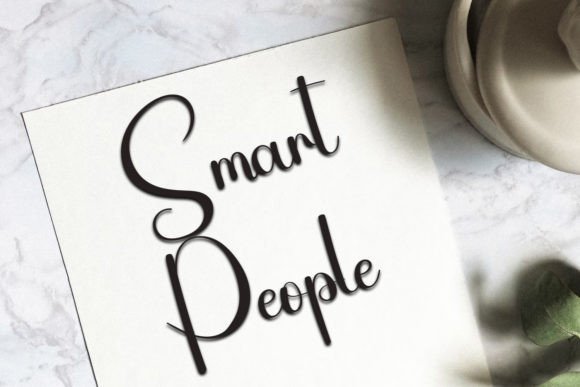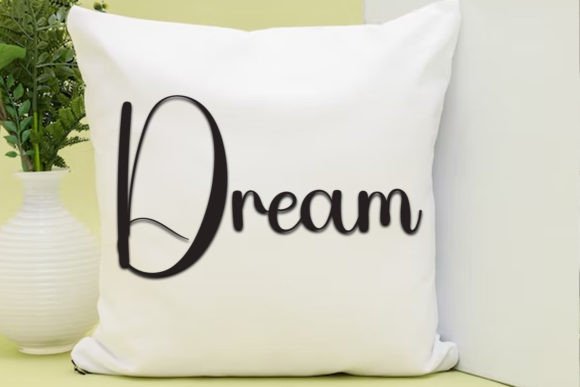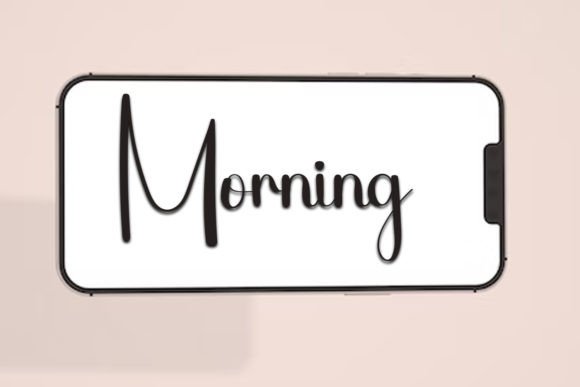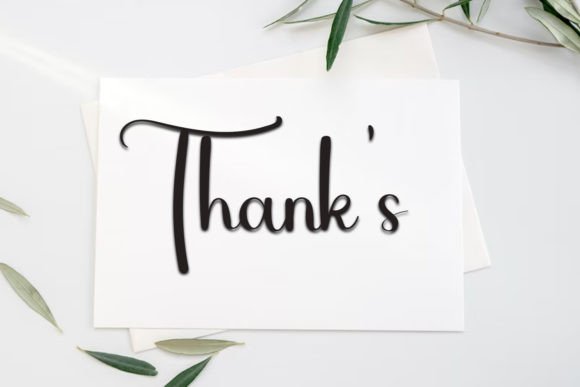
The Elegance of Greetings Font: Elevating Designs with Modern Simplicity
In the realm of typography, few fonts manage to strike a balance between modern simplicity and timeless elegance. Greetings font, however, stands out as a beacon of sophistication, offering designers and crafters an exceptional tool to infuse their projects with a personal touch. This script font is not just a typeface; it’s an expression of grace and style that seamlessly blends contemporary flair with classic undertones.
The Essence of Greetings Font
Greetings font is characterized by its fluid lines and effortless strokes, which together create a sense of movement and elegance. This fluidity is not just aesthetically pleasing but also highly versatile, making Greetings suitable for a wide range of design applications. From sophisticated branding and logos to editorial designs that demand a touch of refinement, Greetings font proves to be an invaluable asset.
Why Choose Greetings Font?
For designers and crafters looking to elevate their work, Greetings font offers several compelling reasons:
- Modern Simplicity: In an era where design trends are constantly evolving, Greetings font embodies the perfect blend of modern simplicity and elegance. Its clean lines and uncomplicated structure make it instantly recognizable and versatile.
- Elegance and Sophistication: The font’s inherent grace and style lend an air of sophistication to any design. Whether it’s for a luxury brand, a high-end product, or an editorial piece, Greetings font ensures that the message is conveyed with elegance.
- Versatility: One of the key strengths of Greetings font is its versatility. It can be used across various platforms and design applications, from digital media to print, without losing its impact or appeal.
- Personal Touch: What sets Greetings apart is its ability to add a personal touch to designs. Its unique character ensures that projects stand out, reflecting the personality and ethos of the brand or individual.
Applications of Greetings Font
The applications of Greetings font are vast and varied. Here are a few areas where it truly shines:
- Branding: For brands aiming to establish a sophisticated and modern identity, Greetings font can be a game-changer. It works exceptionally well in logos, wordmarks, and even taglines, offering a distinctive voice.
- Editorial Designs: In editorial design, the font’s elegance and readability make it an excellent choice for headings, subheadings, and even body text. It adds a layer of sophistication to magazines, blogs, and digital publications.
- Packaging: For product packaging, Greetings font can add a touch of luxury and appeal. Its modern simplicity ensures that the packaging stands out on shelves, conveying the brand’s message effectively.
Tips for Using Greetings Font
To make the most of Greetings font, consider the following tips:
- Pair it Wisely: Greetings font pairs well with both serif and sans serif fonts. The key is to balance its elegance with complementary typefaces that enhance its beauty.
- Experiment with Sizes: Don’t be afraid to experiment with different sizes. Greetings font maintains its integrity and impact across various sizes, making it suitable for both headings and body text.
- Pay Attention to Spacing: Proper spacing is crucial to maintaining the font’s elegance. Ensure that there’s sufficient kerning and leading to enhance readability and aesthetic appeal.
Greetings font is more than just a typeface; it’s a design statement. Its modern simplicity, elegance, and versatility make it an ideal choice for designers and crafters looking to add a personal touch to their projects. Whether you’re working on branding, editorial designs, or packaging, Greetings font offers a timeless yet contemporary sense of grace and style that is sure to elevate your work. Embrace the elegance of Greetings font and discover a new dimension of typographic excellence.